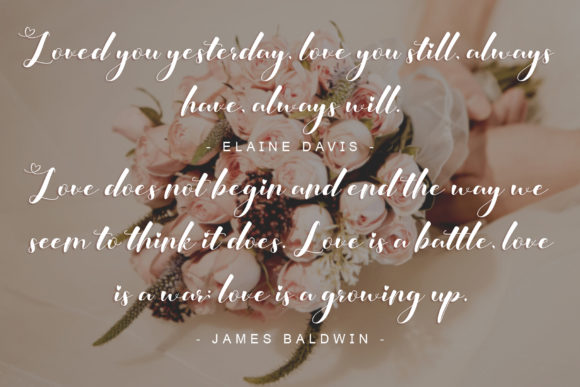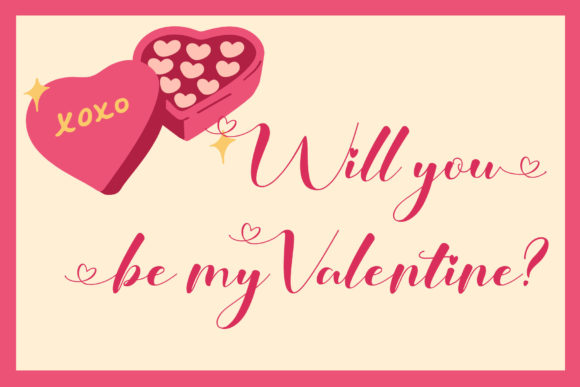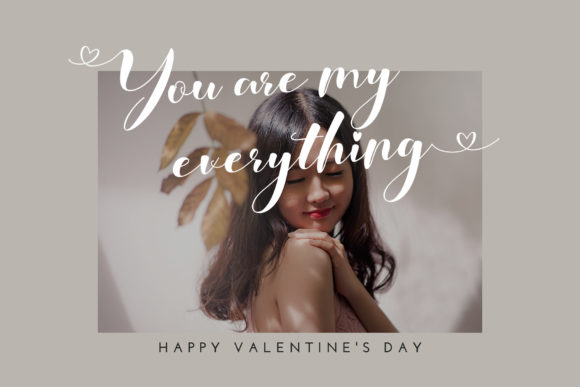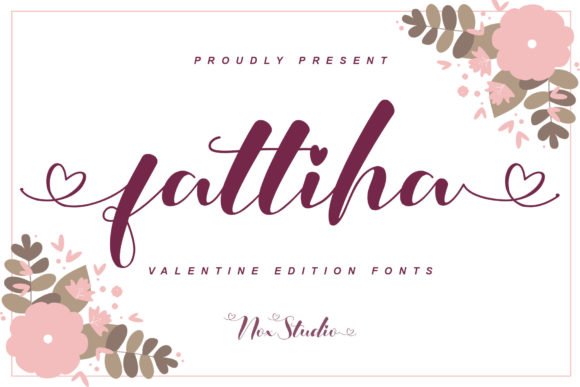
Introduction to Fattiha Font
Fattiha is a romantic and sweet script calligraphy font with characters that dance along the baseline.
It will add a luxury spark to any design project you wish to create .
Key Features of Fattiha Font
Why Choose Fattiha Font?
Fattiha Font offers exceptional quality and versatility, making it a valuable addition to your design toolkit. Whether you’re creating for personal projects or commercial use, Fattiha Font delivers professional results.